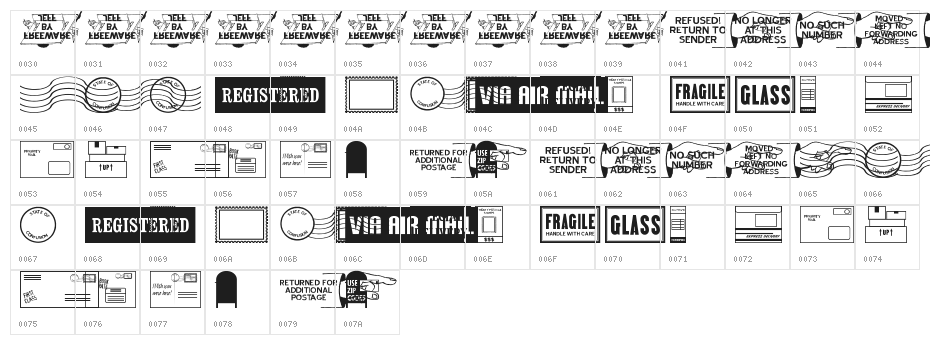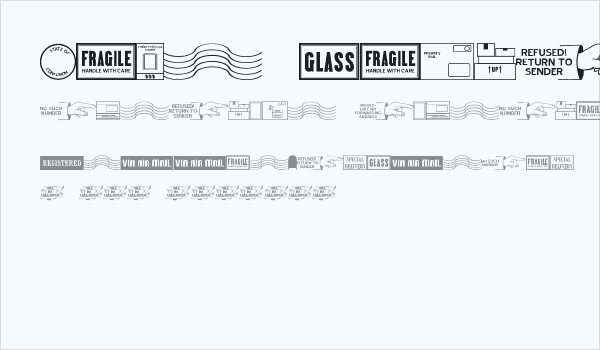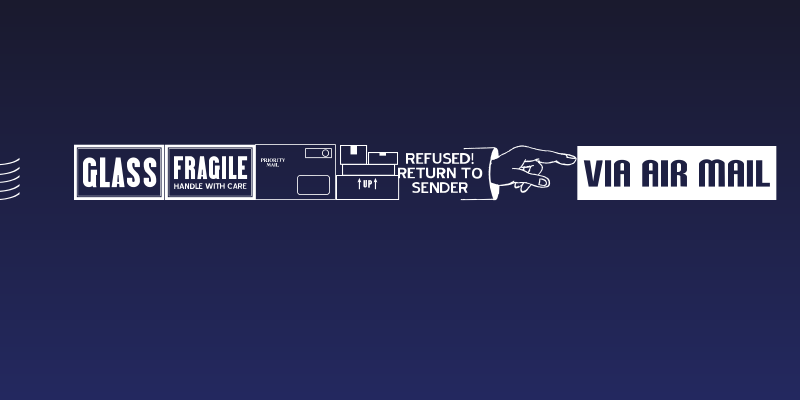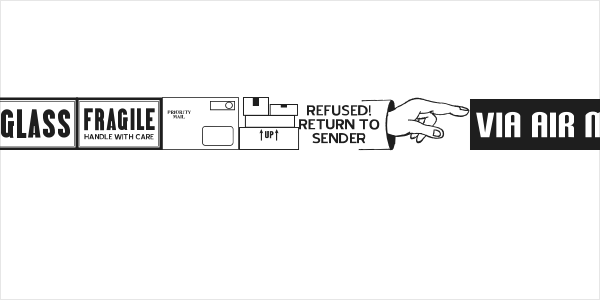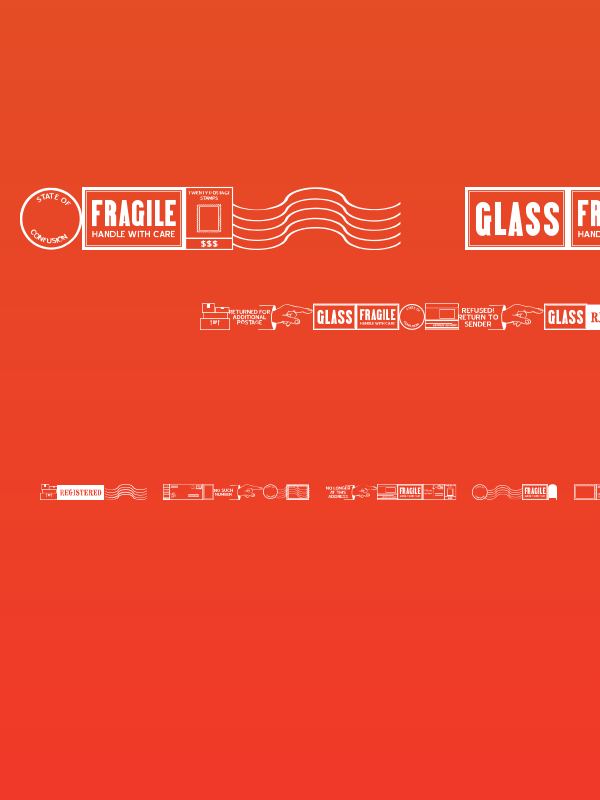
Gone Postal JL Font
Gone Postal JL Description
This font is a decorative and playful design that mimics the appearance of postal stamps and labels. It features elements such as arrows, hands, and postal marks, creating a unique and thematic style. The characters are bold and graphic, with a mix of uppercase letters, numbers, and special symbols that resemble postal instructions and markings. The overall design is reminiscent of vintage postal services, making it ideal for projects that require a nostalgic or themed aesthetic.
| Overall Style | Vintage |
| Use Case | Logos, Posters, Themed Invitations |
| Proposed Projects | Ideal for themed invitations, posters, scrapbooking, and any design project that requires a vintage postal aesthetic. |